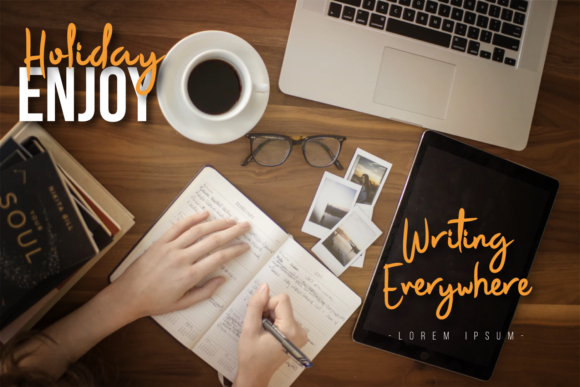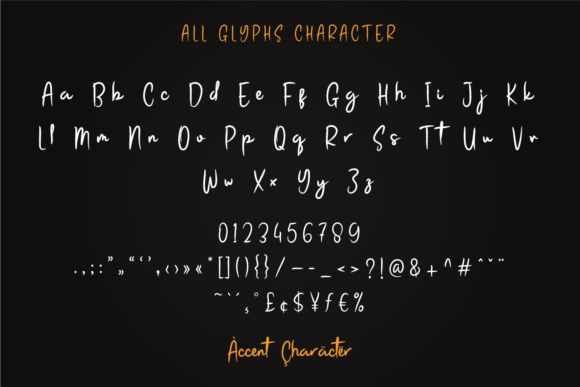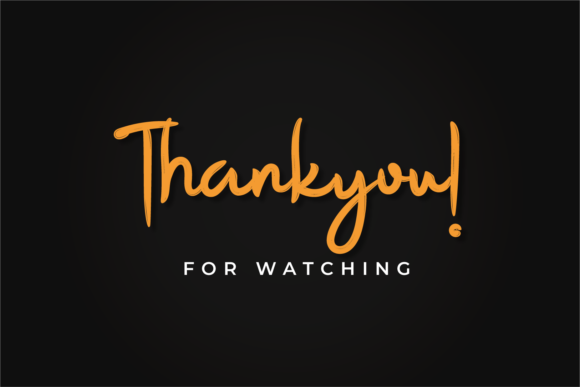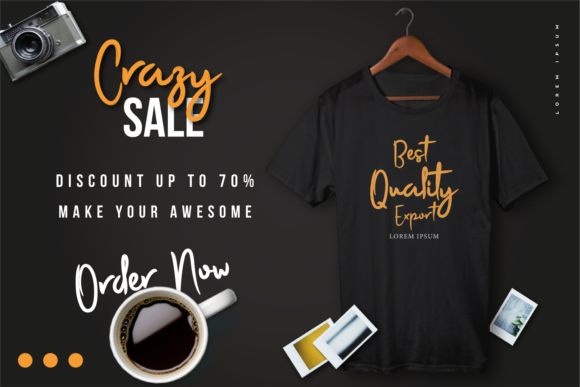
Introducing Srangat: The Modern Handwritten Font
Discover the allure of Srangat, a modern handwritten font that will sweep you off your feet with its contemporary charm. Whether you’re working on logos, branding, invitations, quotes, posters, social media graphics, or any other project, Srangat is the perfect choice to elevate your designs to new heights.
Srangat’s modern and handwritten style brings a sense of freshness and sophistication to your creations. Its sleek letterforms and artistic strokes make your text exude a captivating and on-trend energy.
As a font that boasts versatility and modernity, Srangat becomes the ideal choice for projects that demand a touch of elegance and contemporary appeal. Its handwritten allure ensures that your work resonates with an authentic and stylish look.
Embrace the allure of Srangat as you embark on your creative journey. Let it be the font that enhances your ideas, bringing them to the highest levels and infusing them with a sense of chic and modernity.
As you explore the possibilities of Srangat, you’ll find it to be a font that elevates your designs with ease. Its modern handwritten style transforms your work, ensuring that your logos, branding, invitations, and social media graphics leave a lasting impression.
So, fall in love with Srangat and let it inspire your creativity. Embrace its modern and handwritten charm and watch as your projects soar to new heights. With Srangat as your font of choice, your designs will resonate with a sense of elegance and contemporary flair, captivating your audience and leaving a lasting impression. Embrace the allure of Srangat and create projects that are truly modern and irresistibly captivating!